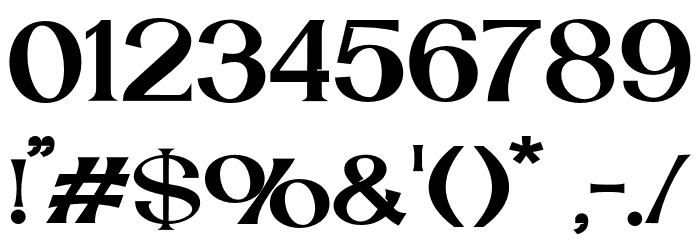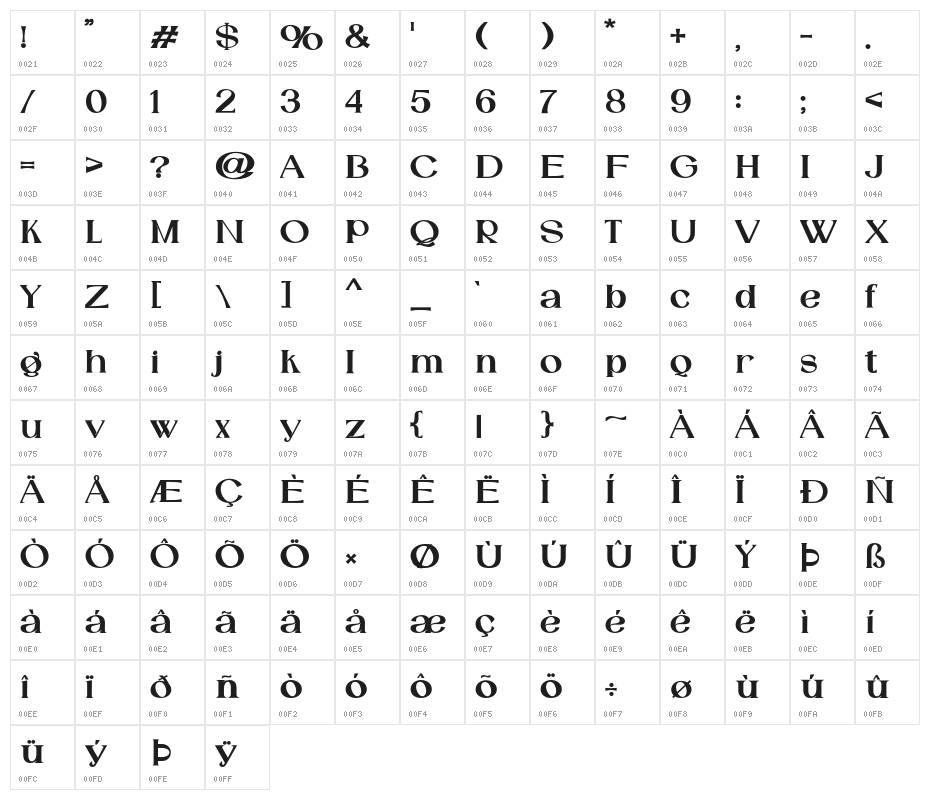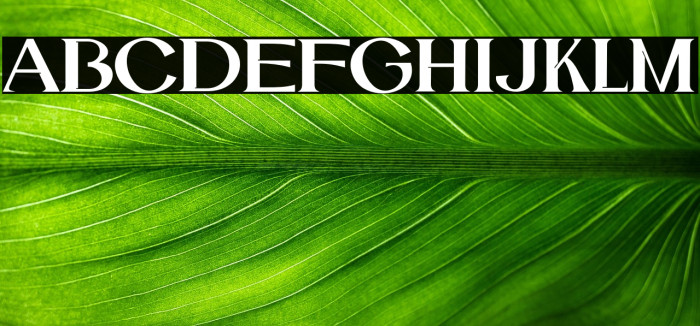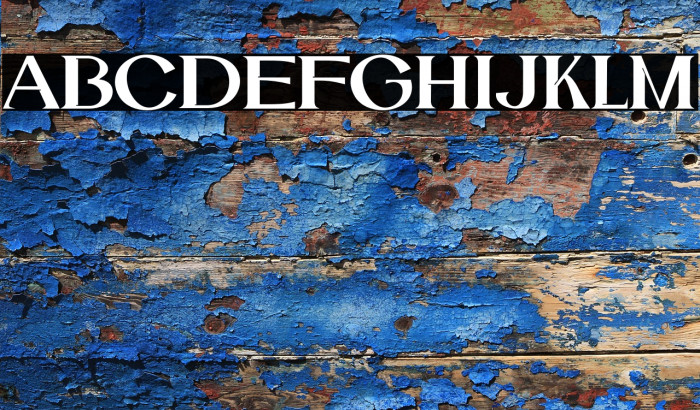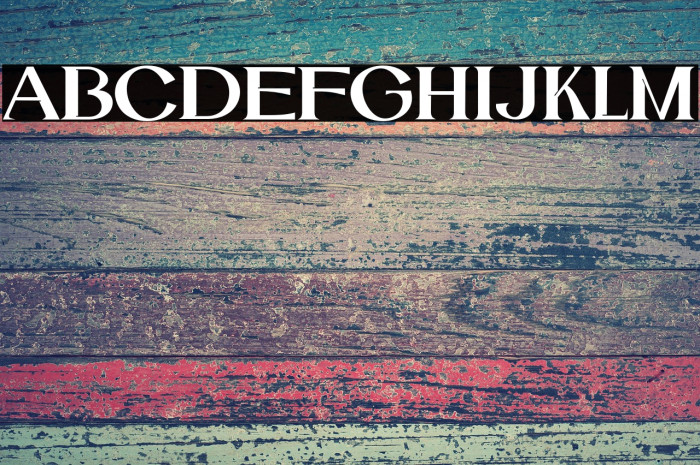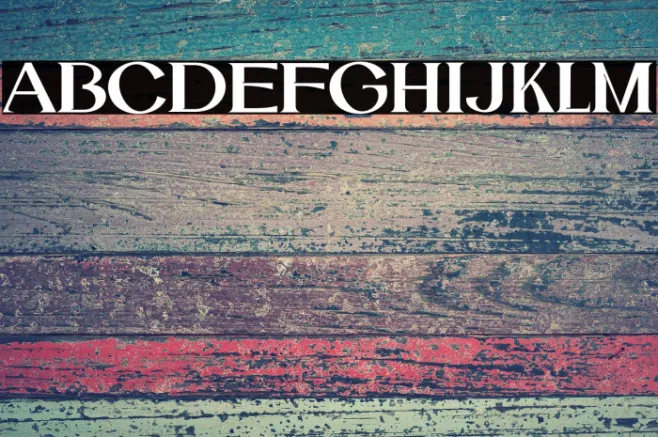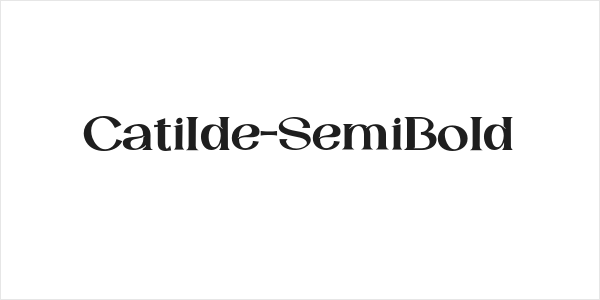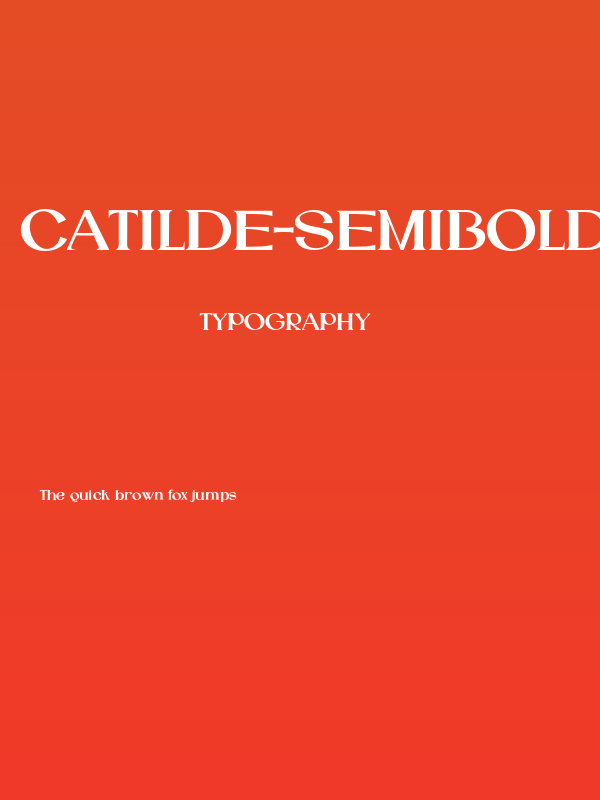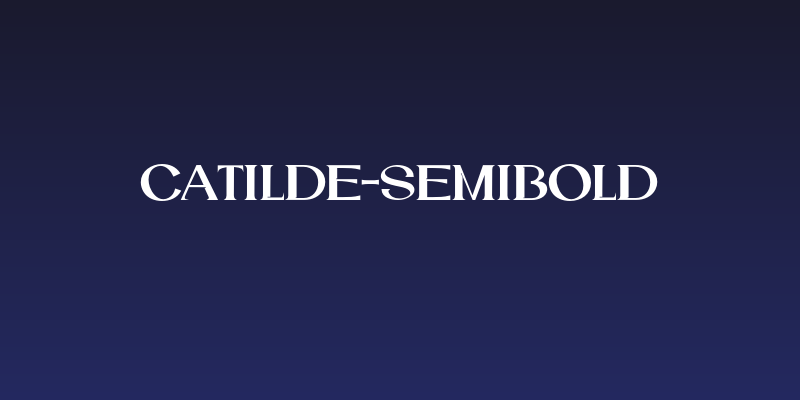
Catilde-SemiBold Font
Catilde-SemiBold Description
This font features a bold and striking serif design, characterized by its strong vertical lines and subtle curves. The uppercase letters exhibit a classic elegance, with distinct serifs that add a touch of sophistication. The lowercase letters maintain a consistent style, offering a harmonious blend of traditional and modern elements. Numbers are clear and robust, ensuring readability. Special characters are well-integrated, maintaining the overall aesthetic. The font's design is versatile, making it suitable for a variety of applications, from formal documents to creative projects.
| Use Case | Headlines, Logos, Editorial design |
| Proposed Projects | Ideal for branding, editorial design, book covers, and formal invitations. |